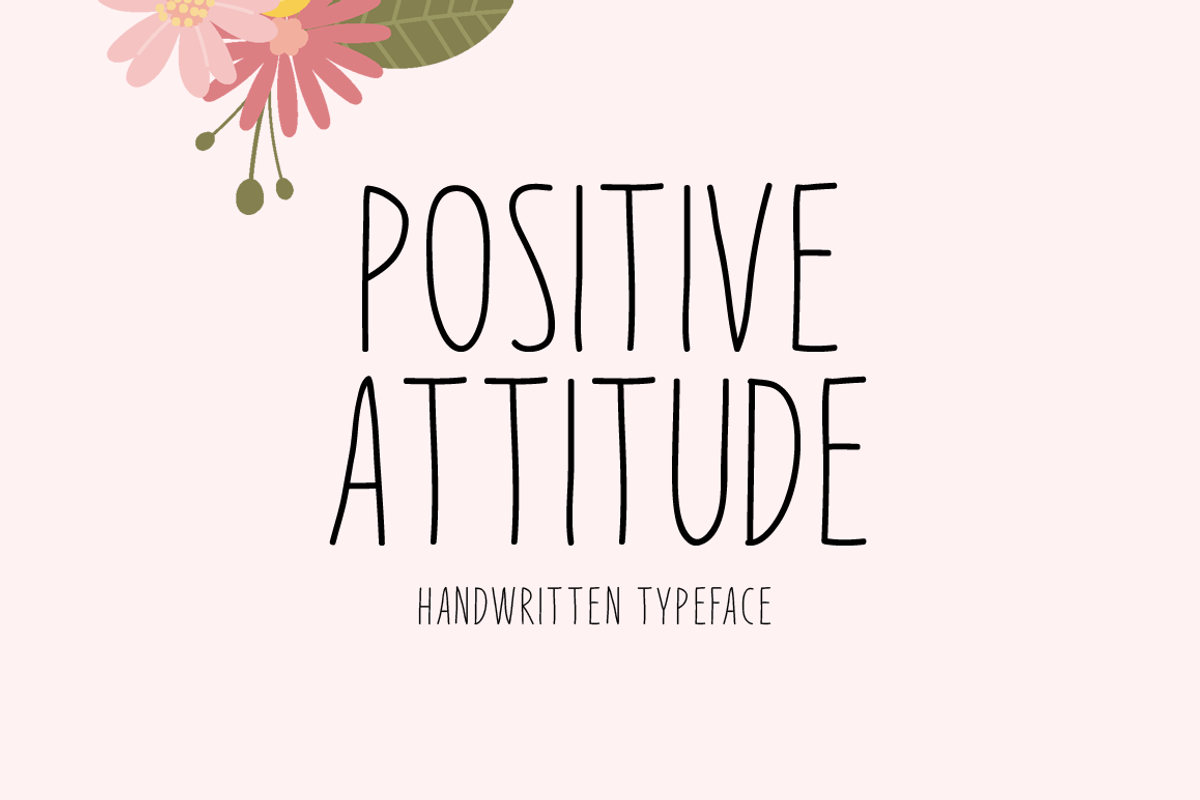
Positive Attitude Typeface Free Download
Positive Attitude Typeface Free Download is a vibrant and uplifting typeface designed to bring energy, optimism, and personality to your creative projects. With its bold curves, playful style, and confident character, this font is ideal for branding, motivational quotes, product packaging, children’s books, and lifestyle content that needs to radiate positivity.
The font’s dynamic structure makes it incredibly versatile — whether you're designing logos, social media posts, or greeting cards, Positive Attitude adds a cheerful vibe that instantly connects with the viewer. Its smooth flow and handcrafted look give your design a human touch while still maintaining a professional edge.